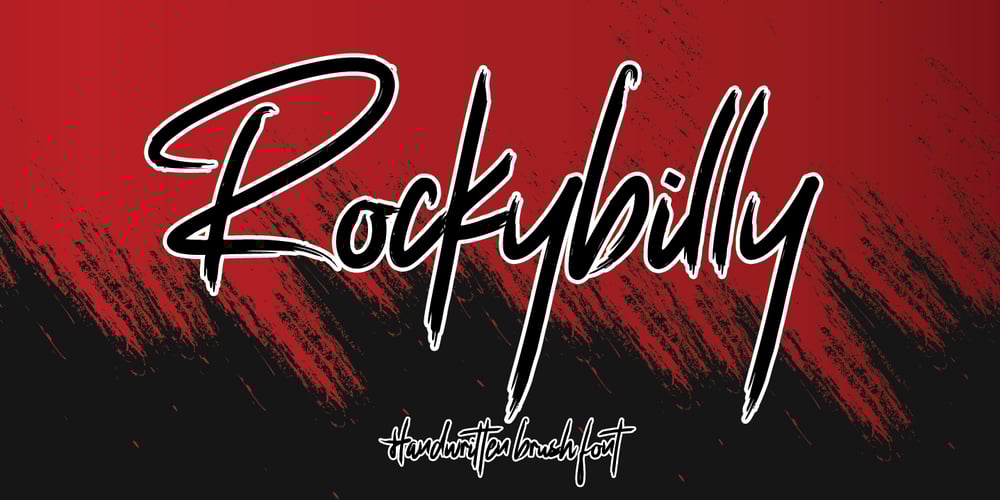
Rockybilly
Rockybilly font
Rockybilly Font Family was designed by Thomas Aradea and published by Letterara. Rockybilly contains 1 styles and family package options. Rockybilly font is a super handwritten brush font bursting with energy. It features extra attention to quick strokes and sharp details. To stay up to date for my latest job, follow me and let’s be friends because there will be many promos.